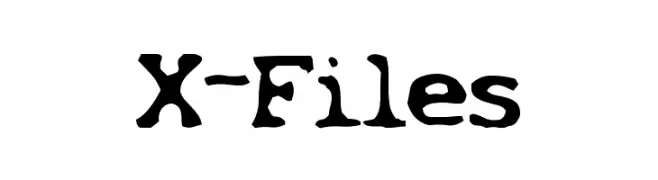
A dynamic, rebellious font with irregular, jagged strokes and a hand-drawn feel.
A bold, playful font with a bubbly, hand-drawn texture.
A bold, eclectic font with playful letterforms and exaggerated serifs.
A decorative, distressed font with an eroded, organic appearance.